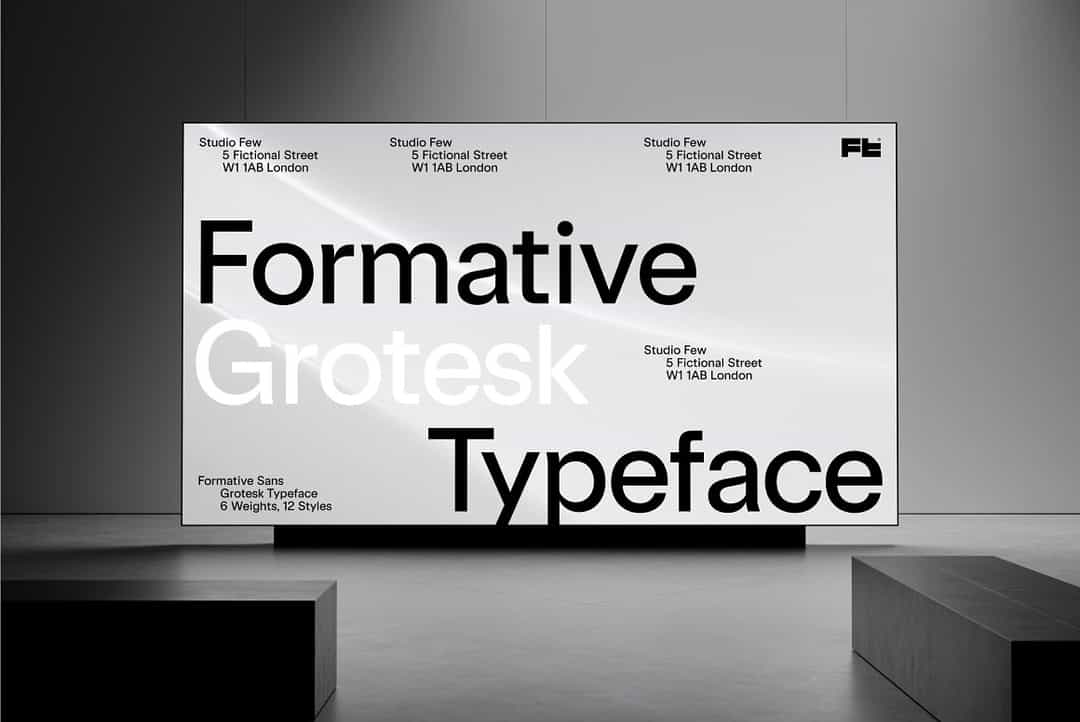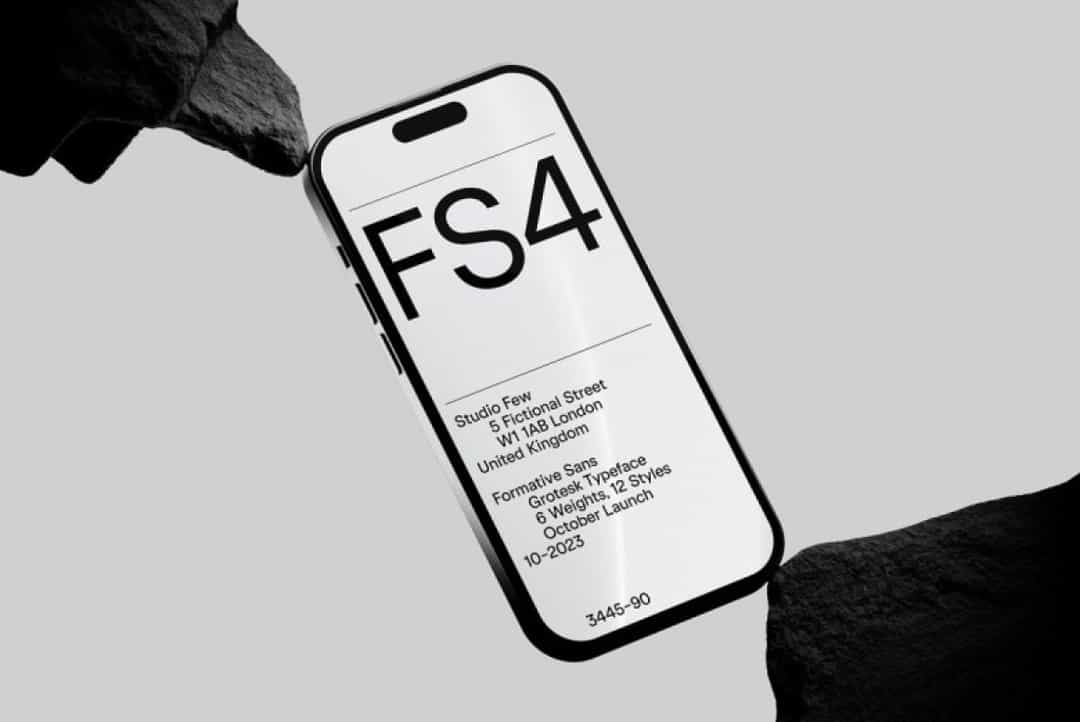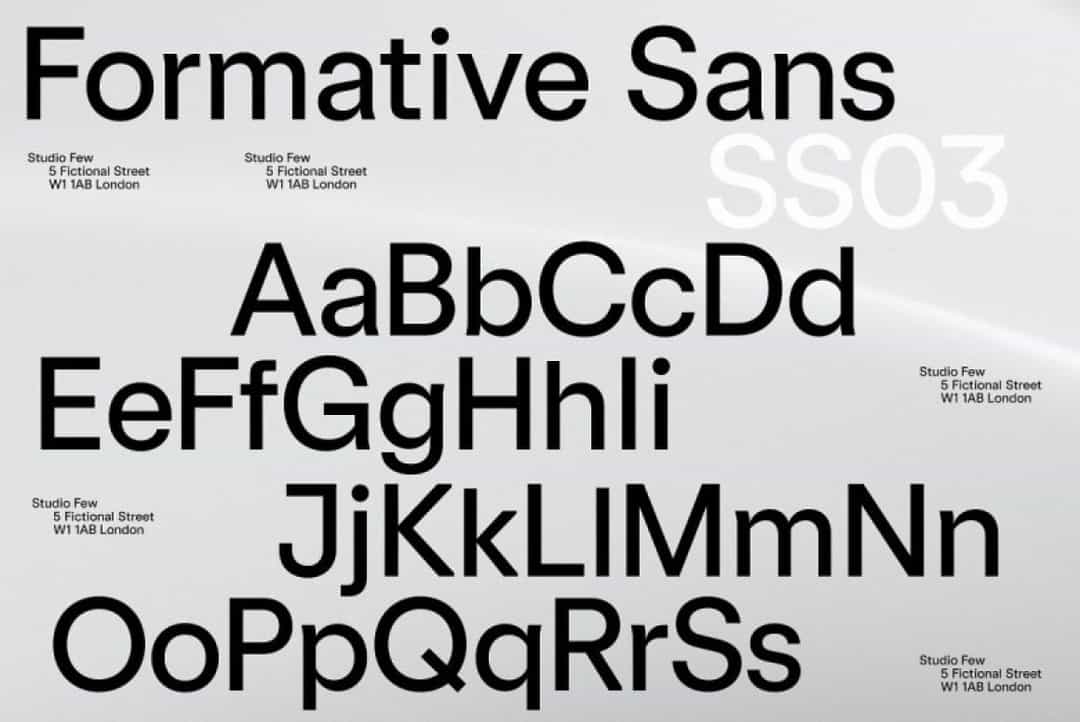
Formativeis Geometric Grotesk Sans Serif Font Family explores size and simplicity in font design, inspired by the unassuming beauty found in lesser-known 20th Century sans. Squared off bowls and an intricate mix of straight and curved paths combine for an eye-catching grotesk that stands out. It includes various stylistic features that bring it alive such as text-style terminals.